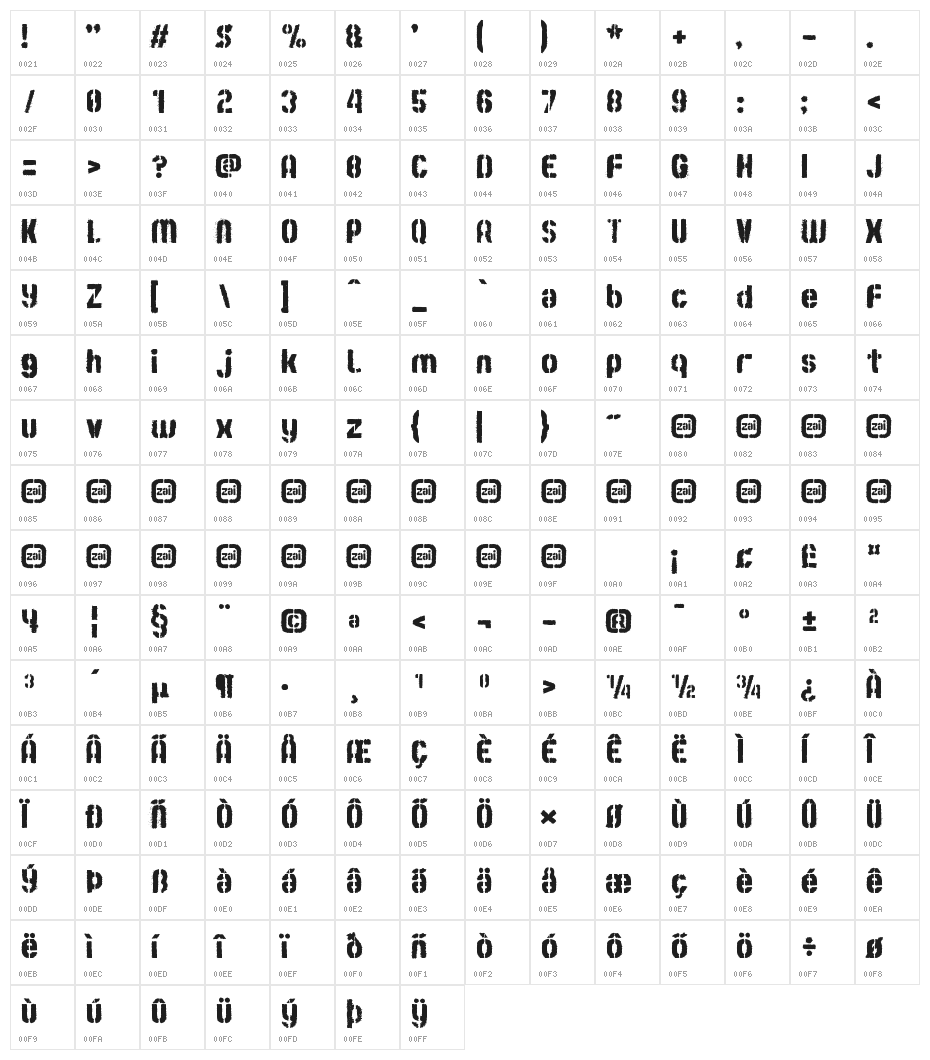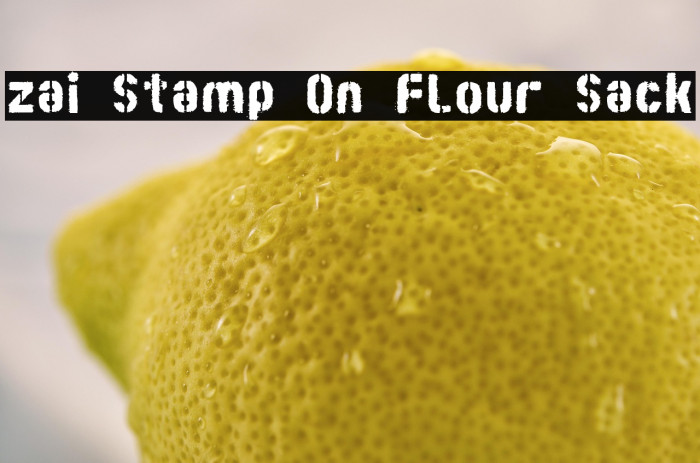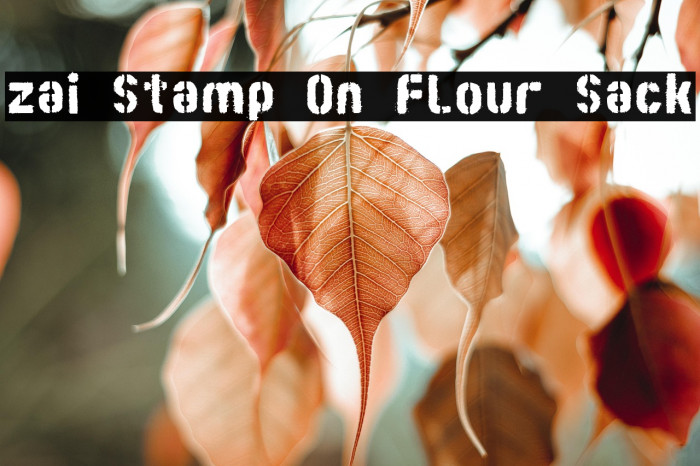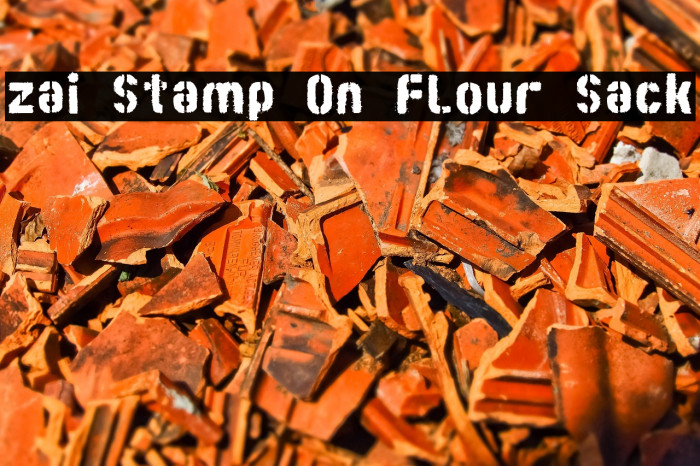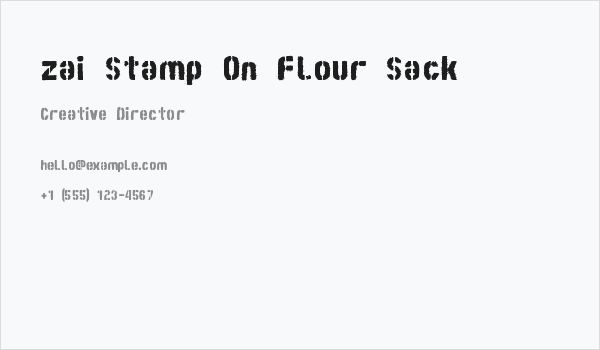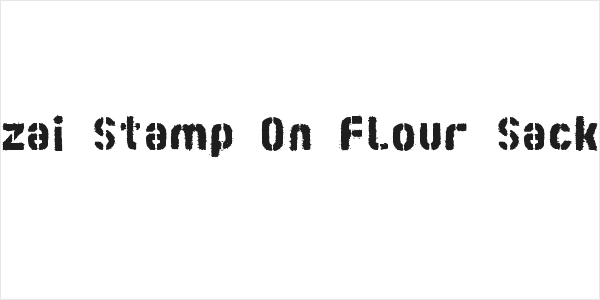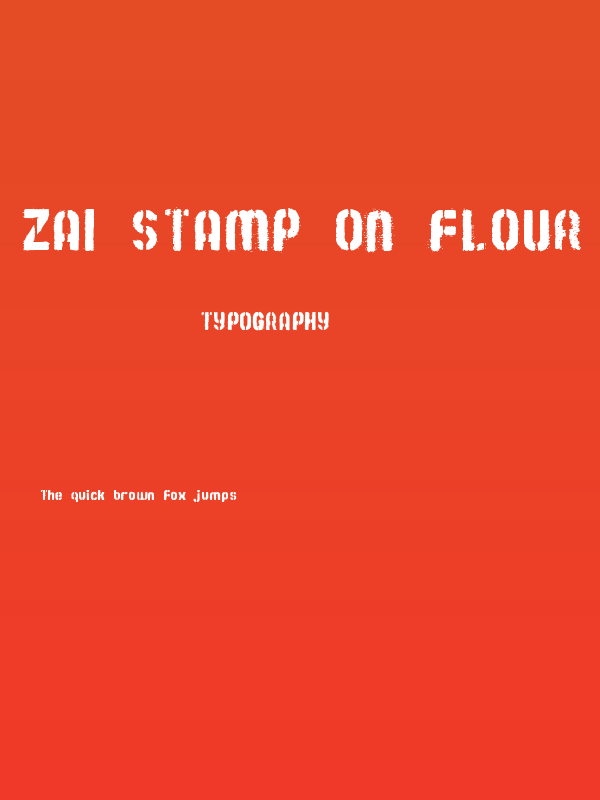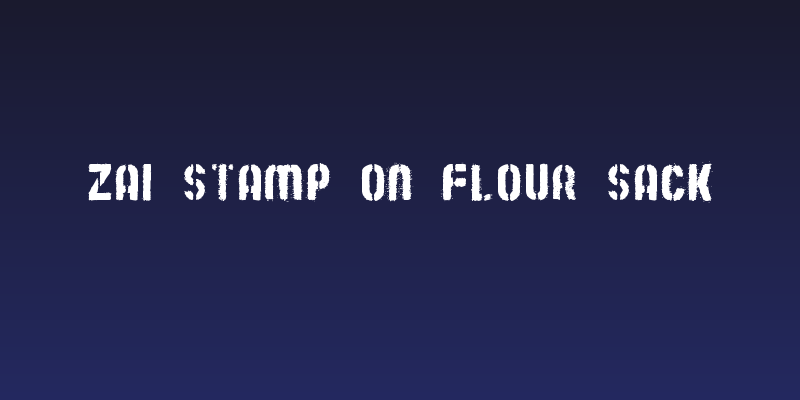
zai Stamp On Flour Sack Font
zai Stamp On Flour Sack Description
This font exhibits a rugged, distressed style reminiscent of vintage stamps or industrial markings. The characters are bold and feature irregular edges, giving them a worn and weathered appearance. This design choice adds a sense of authenticity and rawness, making it ideal for projects that require a gritty, urban feel. The uppercase and lowercase letters maintain a consistent style, while the numerals and special characters follow suit, ensuring uniformity across all text elements. The font's unique texture and bold presence make it stand out, perfect for designs that aim to capture attention with a touch of nostalgia.
| Proposed Projects | Ideal for branding, posters, album covers, and any design needing a rugged, vintage aesthetic. |